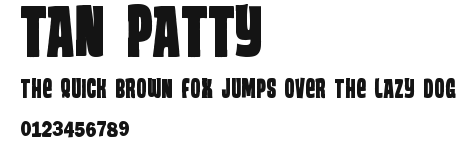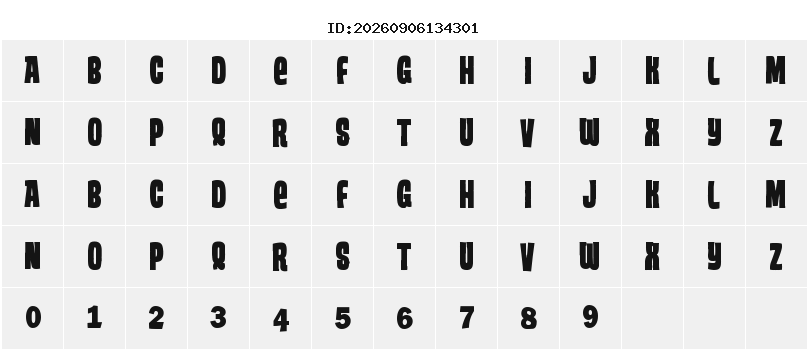
Tan Patty Preview
• Font Name: Tan Patty
• Full Font Name: Tan Patty
About Tan Patty.ttf
Tan Patty.ttf is a modern, elegant sans-serif font designed for ultimate readability and visual harmony. Perfect for branding, headlines, web design, and print materials.